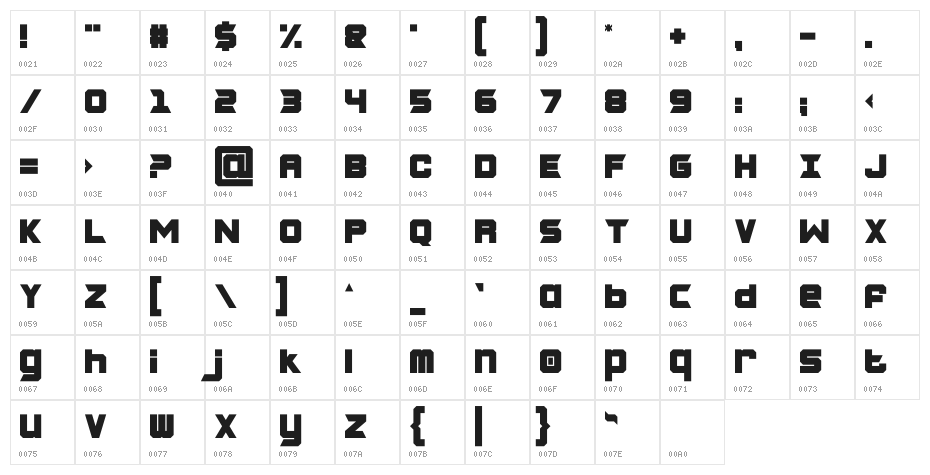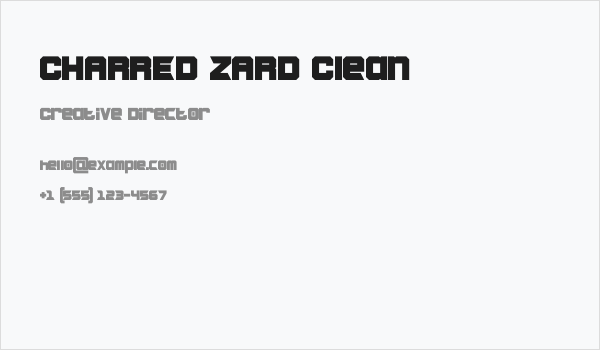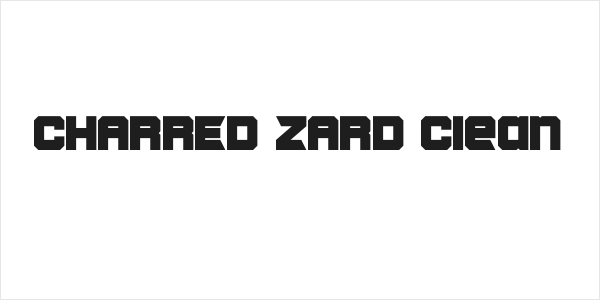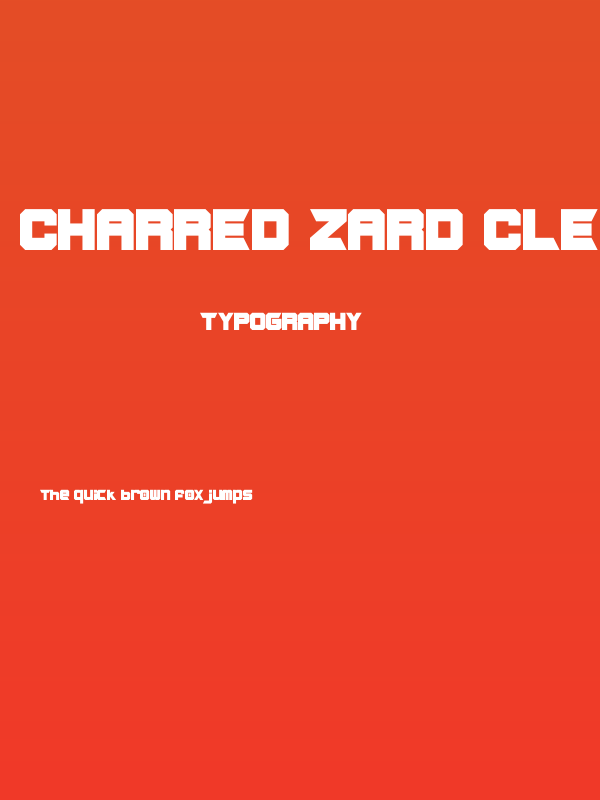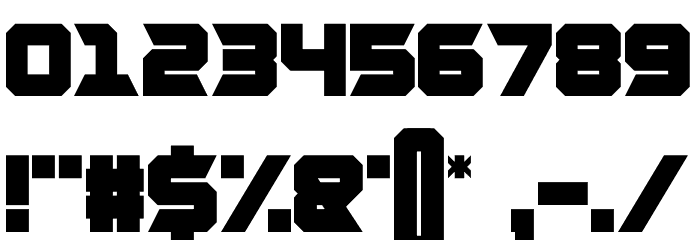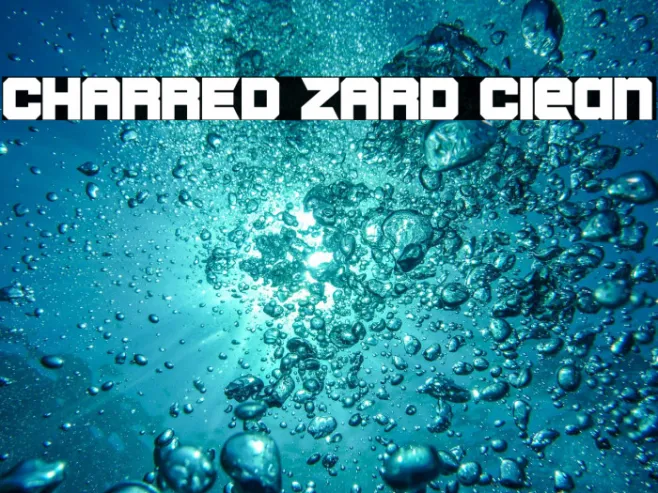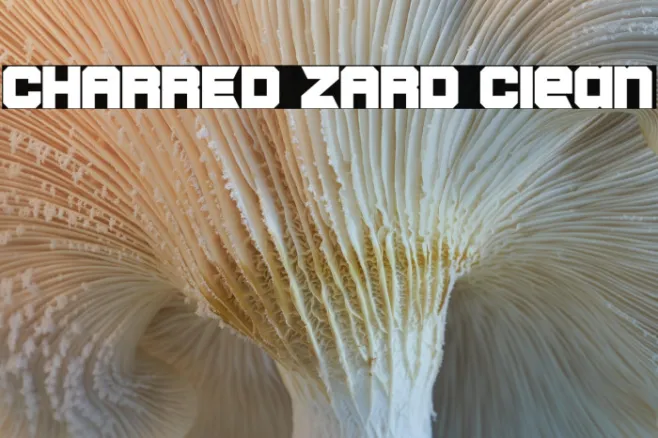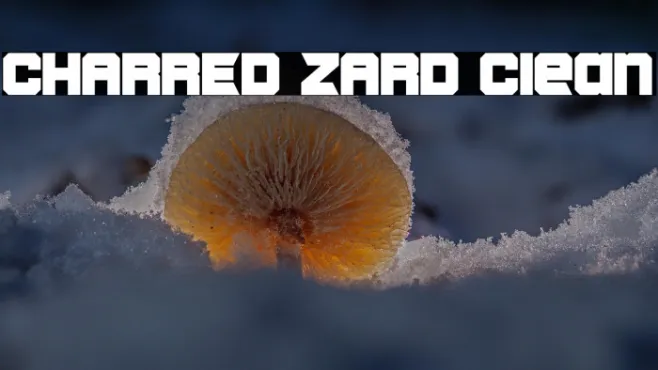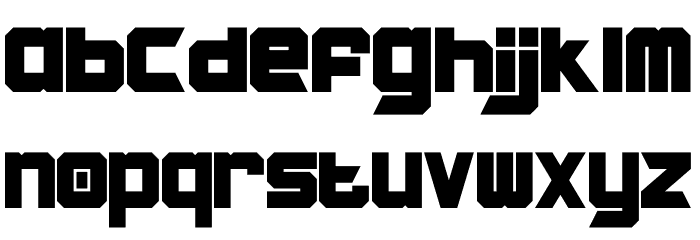
CHARRED ZARD Clean Font
CHARRED ZARD Clean Description
This font features a bold and geometric design with strong, angular lines and a blocky appearance. The characters are uniformly thick, giving it a robust and impactful look. The uppercase and lowercase letters maintain a consistent style, with sharp edges and a futuristic feel. Numbers and special characters follow the same design principles, ensuring a cohesive appearance across all glyphs. The font's distinct style makes it suitable for attention-grabbing headlines and modern design projects.
| Proposed Projects | Ideal for branding, posters, video game graphics, and sci-fi themed designs. |